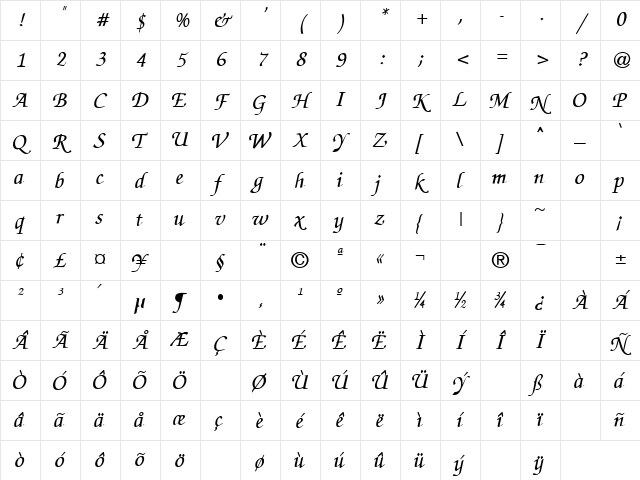
Realization 2 Normal
Design Context for Realization 2
Realization 2 is a composed and adaptable typeface that performs quietly and consistently across a wide range of design contexts.
Pro Tip: Use Realization 2 in both headline and body roles to test its range before committing to a single application.